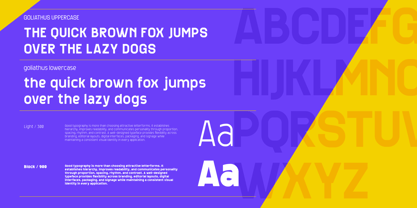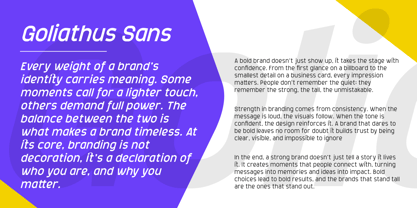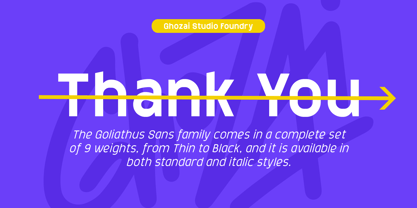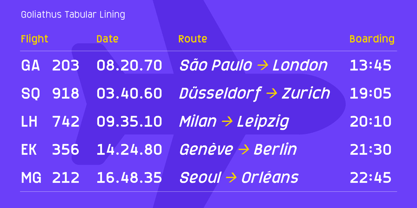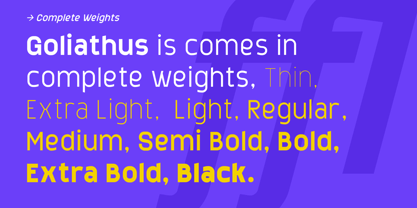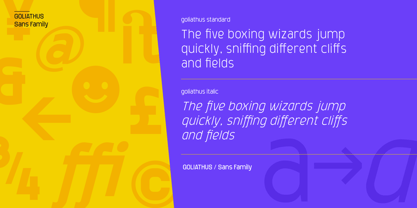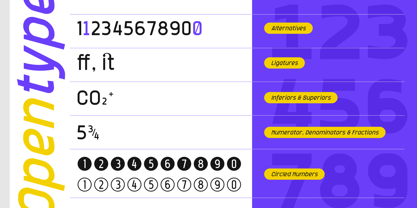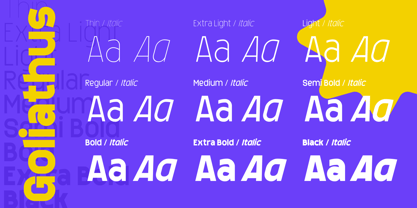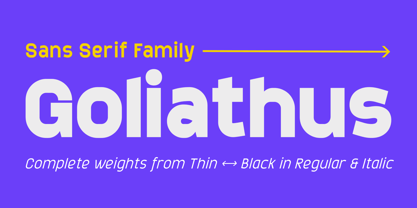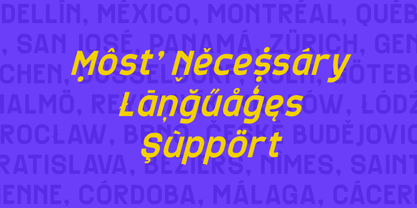
Goliathus
The Goliathus Font Family was designed by Manzur Ghozaali and published by Ghozai Studio. Goliathus contains 18 styles and family package options. More about this family
Goliathus is a grotesque-sans font family featuring 9 distinct weights, from Thin to Black, along with regular and italic styles, totaling 18 fonts offering the flexibility to create expressive typography and cohesive visual identities. Designed to perform across a wide range of applications, editorial layouts, authority in branding, and clarity in professional communication.
Goliathus includes a range of OpenType features, such as Stylistic Alternates for subtle variations in letterforms, Ligatures for smoother text flow, and Tabular Lining Figures for neatly aligned numerical data and other OpenType features.
Perfect for : Editorial Design • Magazine Layouts • Luxury Branding • Corporate Identity • Fashion Campaigns • Beauty Packaging • Book Design • Publishing • Advertising • Logos • Websites • User Interfaces • Presentations • Invitations • Product Packaging • Annual Reports • Stationery • Marketing Materials • Headline Typography • Professional Documents